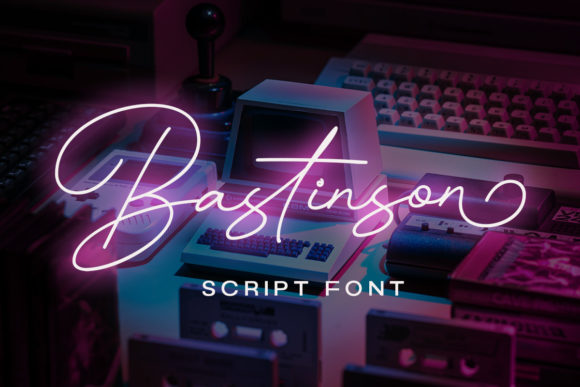
Bastinson: The Retro Monoline Script for Modern Projects
A Gentle Touch of Nostalgia
In a design landscape saturated with bold sans serifs and intricate serifs, sometimes a project calls for something with a bit more soul. Enter Bastinson - Monoline Script, a premium font that masterfully blends retro charm with contemporary elegance. This isn't your average script font; it's a thin-lettered, monoline typeface that exudes a joyful and romantic vibe. Its gentle, flowing letterforms connect with a consistent, hairline weight, creating a look that is both clean and deeply personal. The personality of Bastinson is approachable and warm, making it a versatile creative font for designers and creators who want to inject a human touch into their work.
Visually, Bastinson strikes a beautiful balance. The retro vibe is evident in its graceful curves and slightly nostalgic character shapes, reminiscent of mid-century signage or elegant stationery. Yet, its monoline construction keeps it feeling modern and uncluttered. This duality is its strength. It avoids the potential messiness of some handwritten fonts while still offering that authentic, handcrafted feel. The result is a typeface that feels familiar yet fresh, capable of adding a layer of sophistication and whimsy to a wide array of design assets.
Where Bastinson Truly Shines: Practical Applications
The true value of any typeface lies in its application. Bastinson - Monoline Script isn't just a pretty face; it's a workhorse for specific, high-impact projects. Its gentle nature makes it a superb choice for logo design, especially for brands in the wellness, boutique retail, artisanal food, or wedding industries. Imagine a bakery logo where the brand name flows in Bastinson, or the elegant masthead for a wedding planner's website. It immediately communicates care, creativity, and a personal touch.
Beyond logos, its utility extends across the creative spectrum:
- Branding & Marketing: Use it for taglines, subheadings, or call-to-action phrases in social media graphics to create a cohesive and engaging brand identity. It’s perfect for Instagram quotes, Facebook ad headlines, or Pinterest pins that need to stand out.
- Packaging & Editorial Design: On product labels for candles, cosmetics, or gourmet goods, Bastinson adds a premium, handcrafted feel. In editorial design, it works beautifully for pull quotes, chapter titles, or feature article headers in magazines and blogs, adding visual interest without overwhelming the reader.
- Web & Digital Design: While script fonts should be used sparingly on the web for readability, Bastinson is excellent for hero section headlines, special announcement banners, or decorative elements on a homepage. Its thin weight ensures it doesn't dominate the digital space.
- Personal & Craft Projects: For crafters and hobbyists, this font is a gem. It’s ideal for creating custom invitations, greeting cards, inspirational wall art, or personalized gifts. The romantic touch makes it especially suitable for projects related to weddings, anniversaries, and celebrations.
Making the Most of Bastinson: A Designer's Guide
Integrating a script font like Bastinson into a project requires a thoughtful approach to maintain professionalism and clarity. Here’s how to use it effectively.
Pairing for Balance and Hierarchy
The key to using any script font successfully is contrast. Bastinson - Monoline Script pairs exceptionally well with clean, simple typefaces. For a modern, balanced look, try pairing it with a geometric sans serif font for body text. The simplicity of the sans serif will allow Bastinson's elegant details to pop in headlines. For a more classic or editorial feel, a timeless serif font can create a beautiful juxtaposition. The goal of font pairing is to create a clear visual hierarchy, where Bastinson draws the eye to key messages, and the supporting typeface handles the heavier reading load.
Readability and Context
As with any display font, context is everything. Bastinson is designed for impact, not for long paragraphs of body copy. Its thin, flowing letters are most legible at larger sizes. Use it for headlines, titles, short phrases, and accents. Always test your designs at the intended viewing size—whether on a mobile screen or a printed poster—to ensure legibility. The romantic, joyful character of the font can enhance audience engagement when used appropriately, but can hinder it if overused in small, dense text blocks.
Before committing, consider if the font's personality aligns with your project's goals. Does the retro, romantic vibe support your message, or would a different style, like a bold modern script or a structured sans serif, be more effective? Review the font's included styles; does it offer the commercial font license you need? Understanding the licensing terms is crucial for any professional project, from client work to products for sale. A quick test drive—setting your key phrases in the font—can reveal if it truly captures the essence you're aiming for.
In the world of modern typography, having a versatile and characterful script font